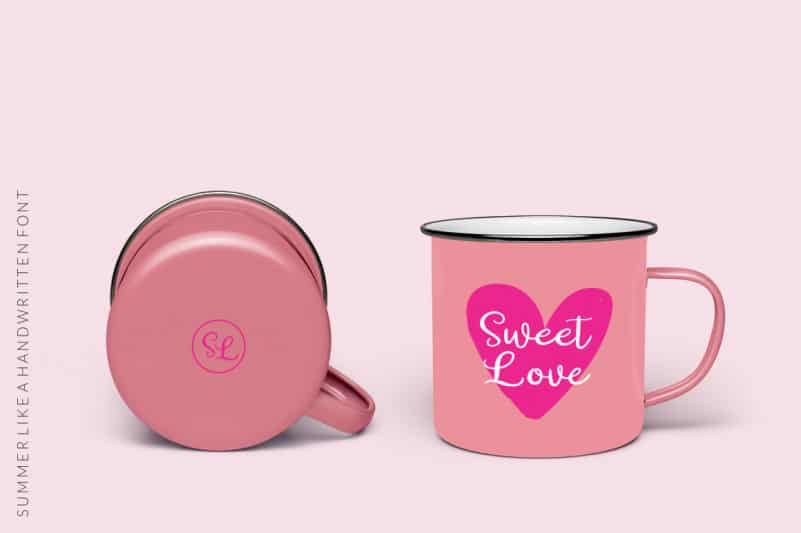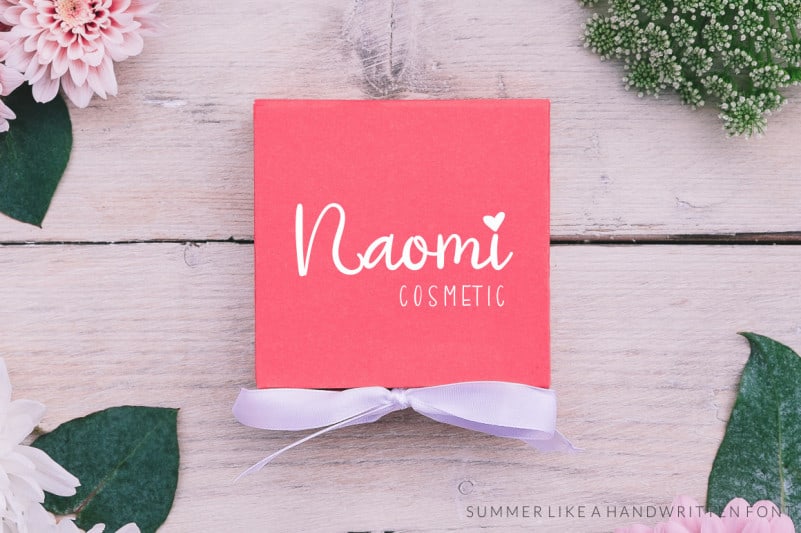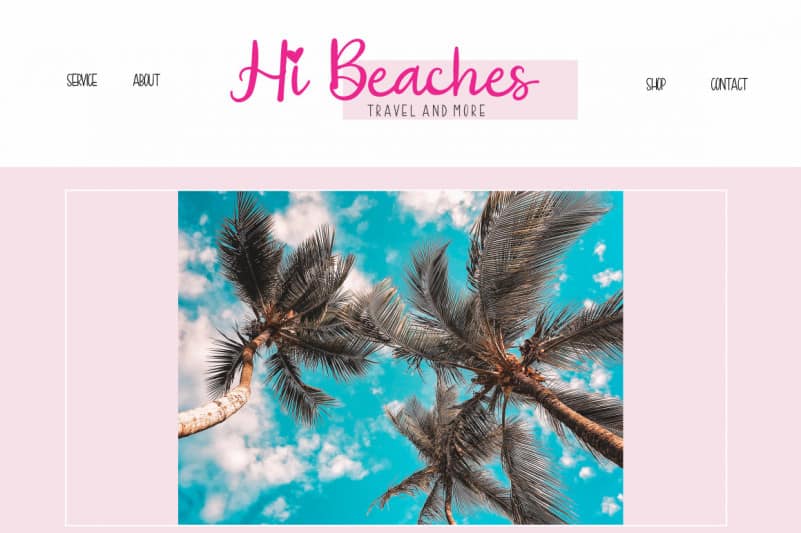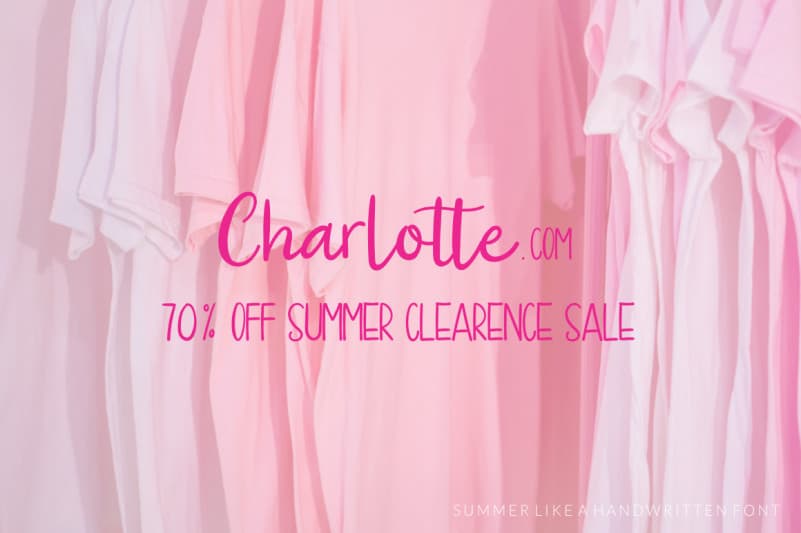
Summer Like Font Duo
Proudly present – Summer Like Font Duo. A cute and sweet script font duo. It includes full set of uppercase, lowercase, numerals, punctuation, symbols and support multilingual.
Summer Like Font Duo is perfect for branding projects, logo, wedding designs, social media posts, advertisements, product packaging, product designs, label, photography, watermark, invitation, stationery and any projects that need handwriting taste.